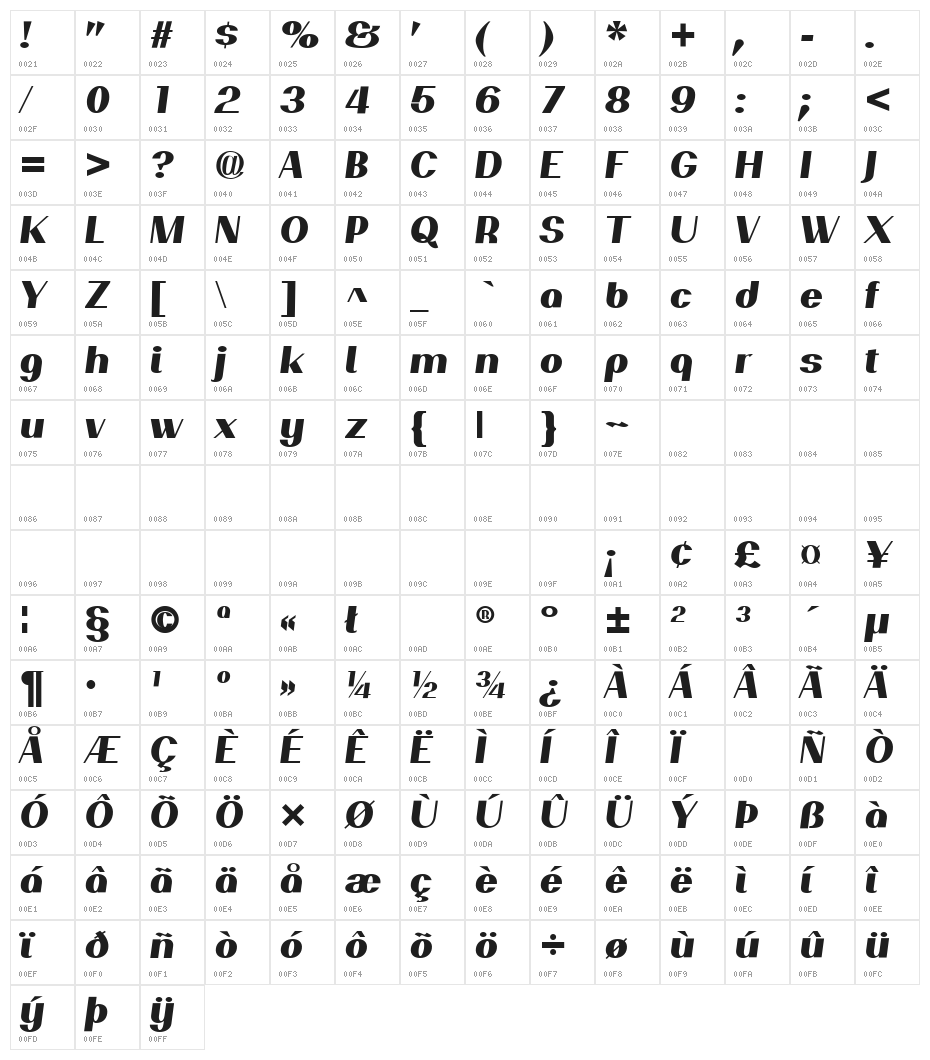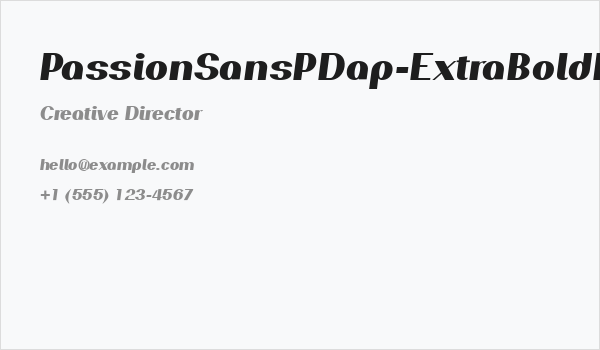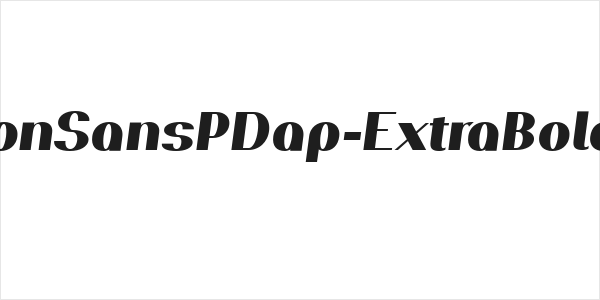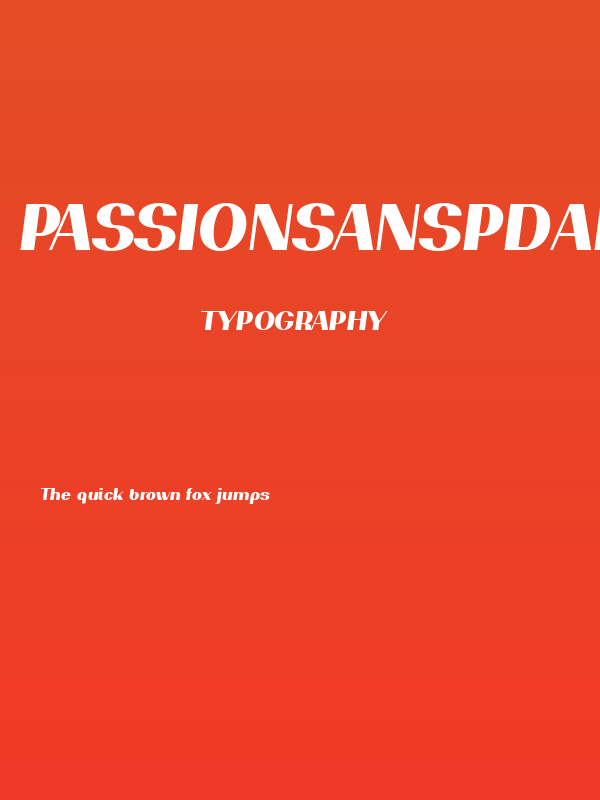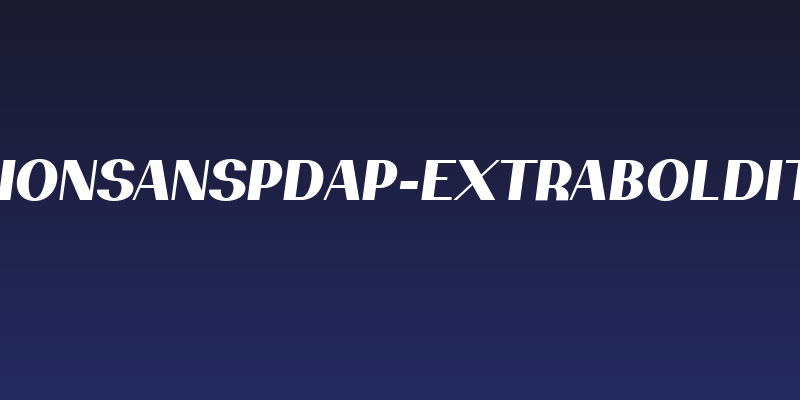
PassionSansPDap-ExtraBoldItalic Font
PassionSansPDap-ExtraBoldItalic Description
This font exhibits a bold and dynamic style, characterized by its extra-bold weight and italicized form. The letters are slightly slanted, adding a sense of movement and energy to the text. The strokes are thick and consistent, providing a strong visual impact. The uppercase and lowercase letters maintain a uniform appearance, with rounded edges that soften the overall look. The numerals are clear and legible, matching the boldness of the alphabet characters. Special characters are included, each designed to complement the font's robust style. This typeface is suitable for making statements, with its powerful presence and modern aesthetic.
| Proposed Projects | Ideal for branding, headlines, posters, and advertising materials where a strong visual impact is desired. |